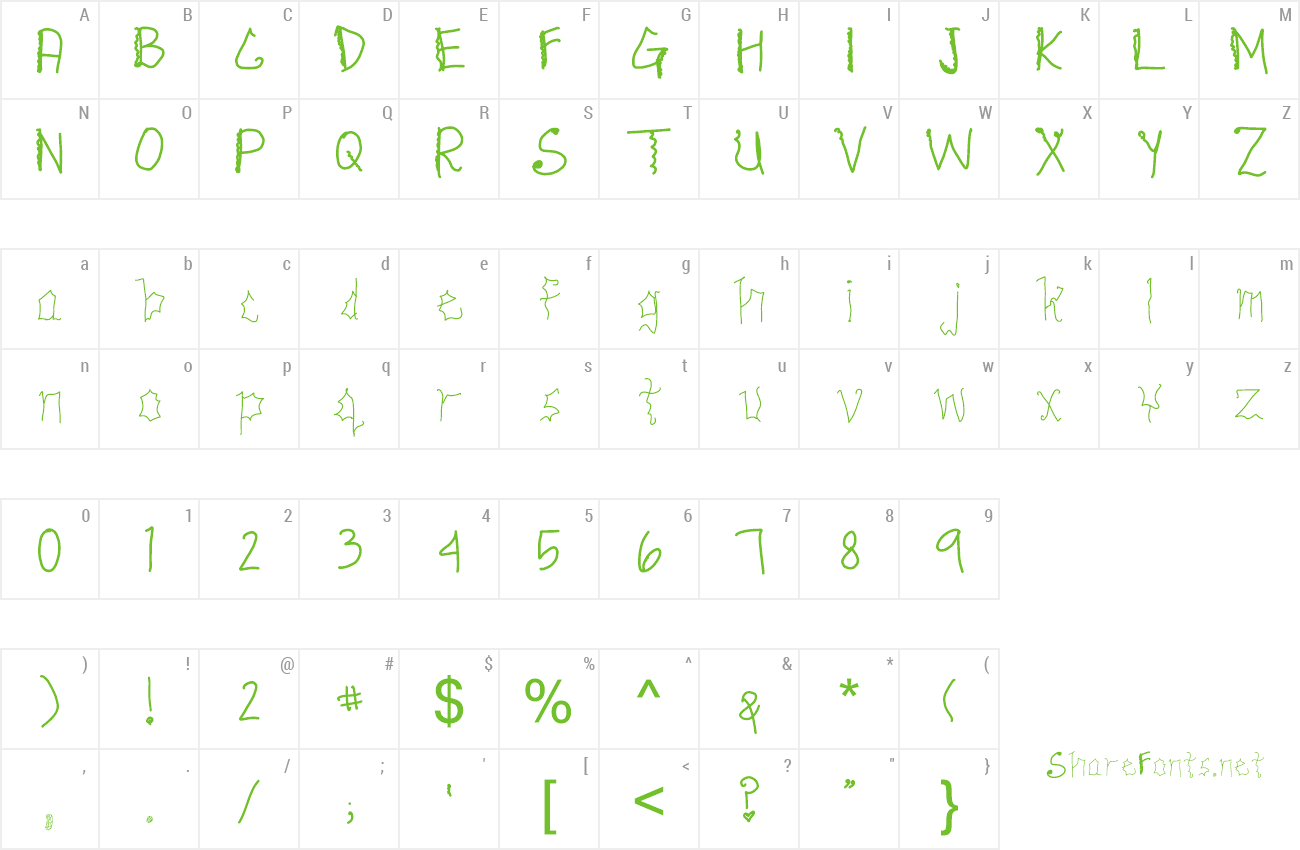
Thunderstorm Font Free Download
Click to find the best 4 free fonts in the thunderstorm style. The thunderstorm font has been downloaded 726 times. Every font is free to. Every font is free to download! Today we are introducing the thunderstorm font.